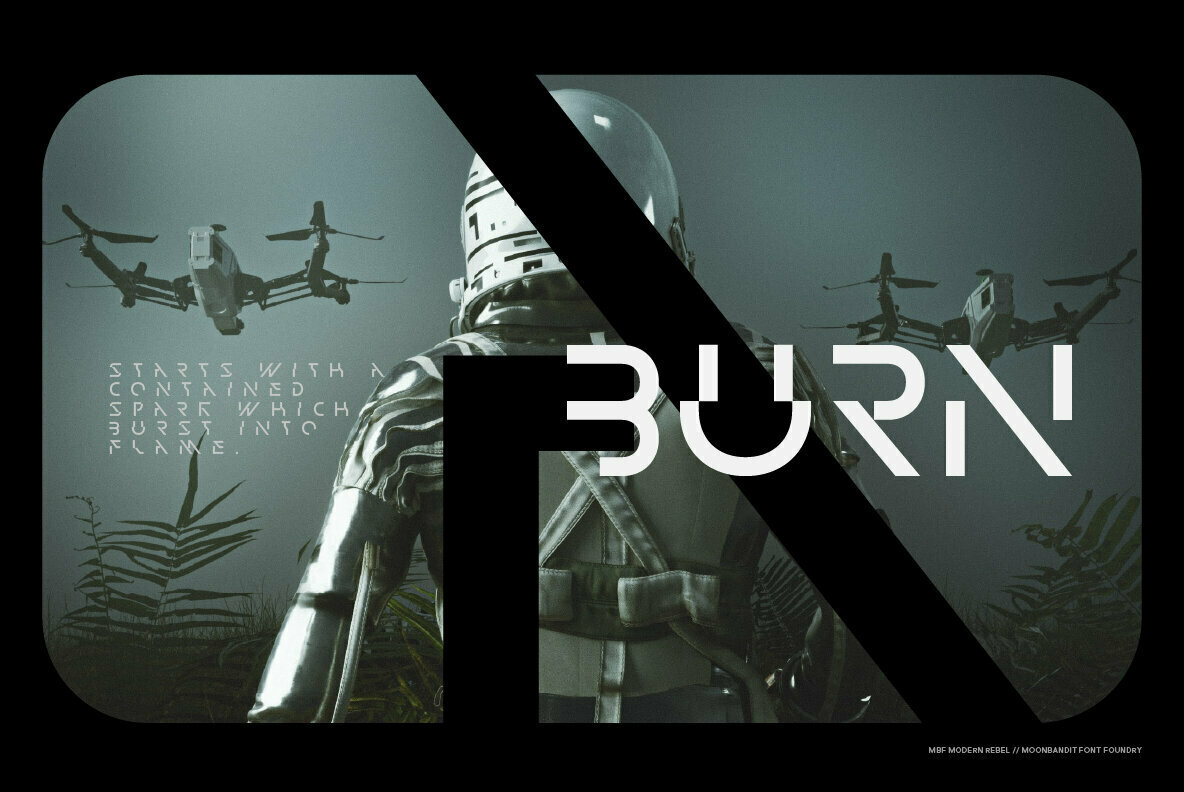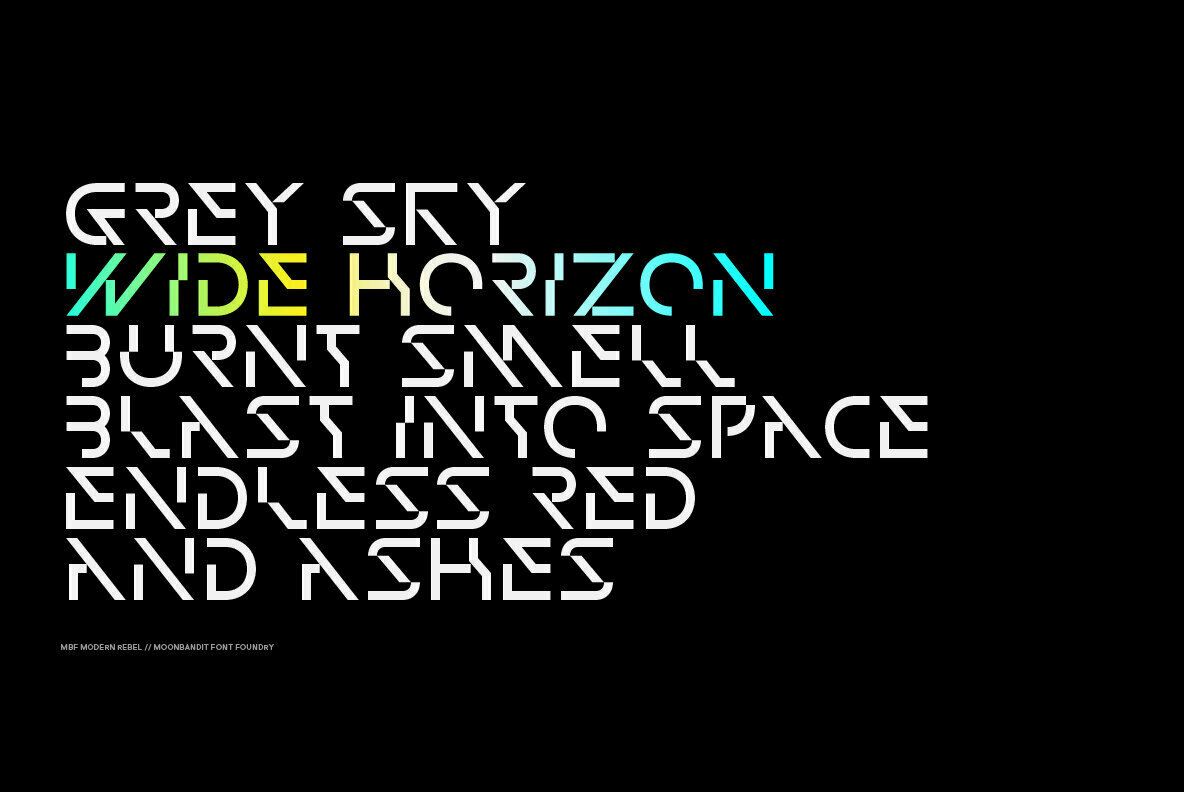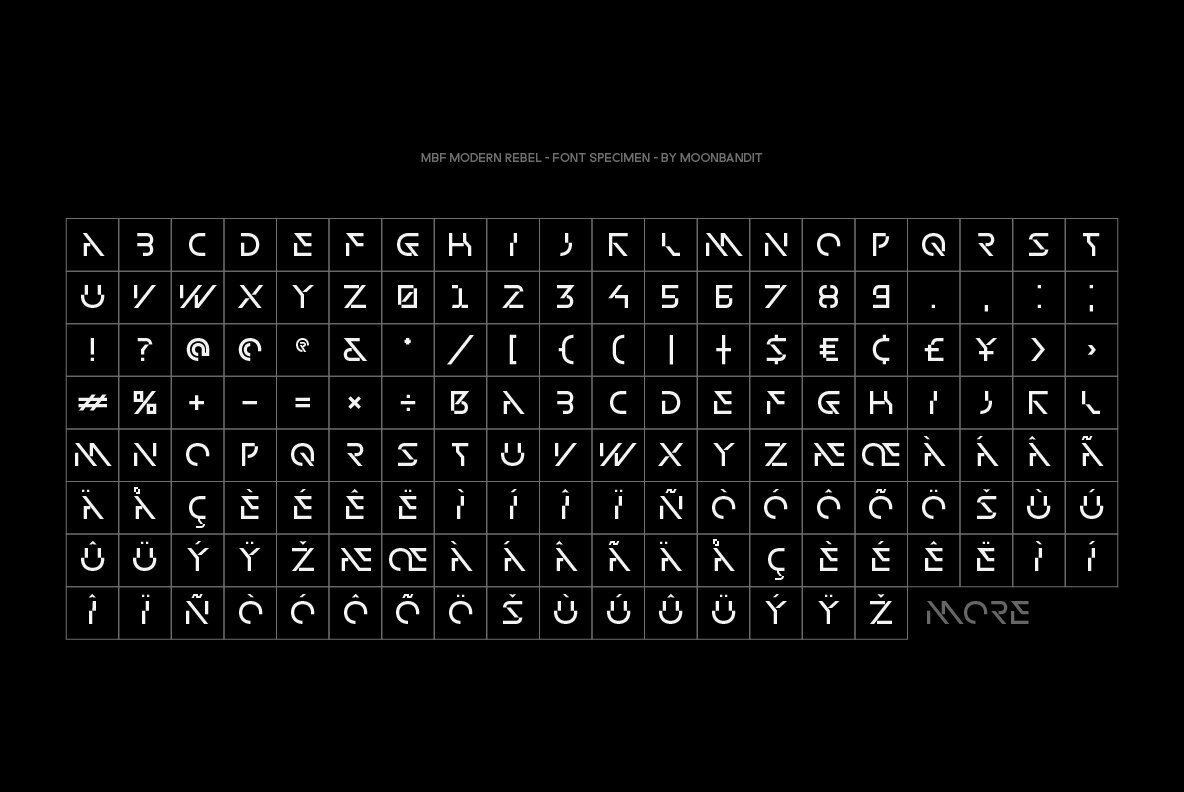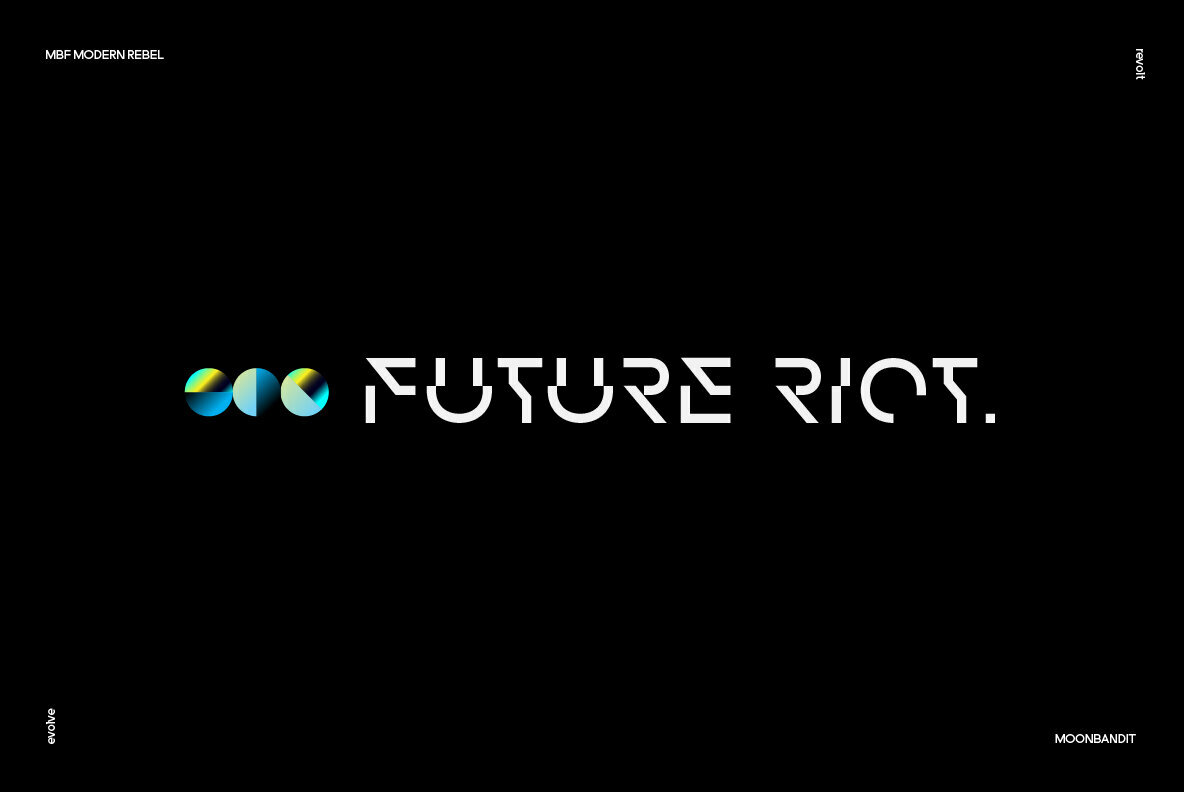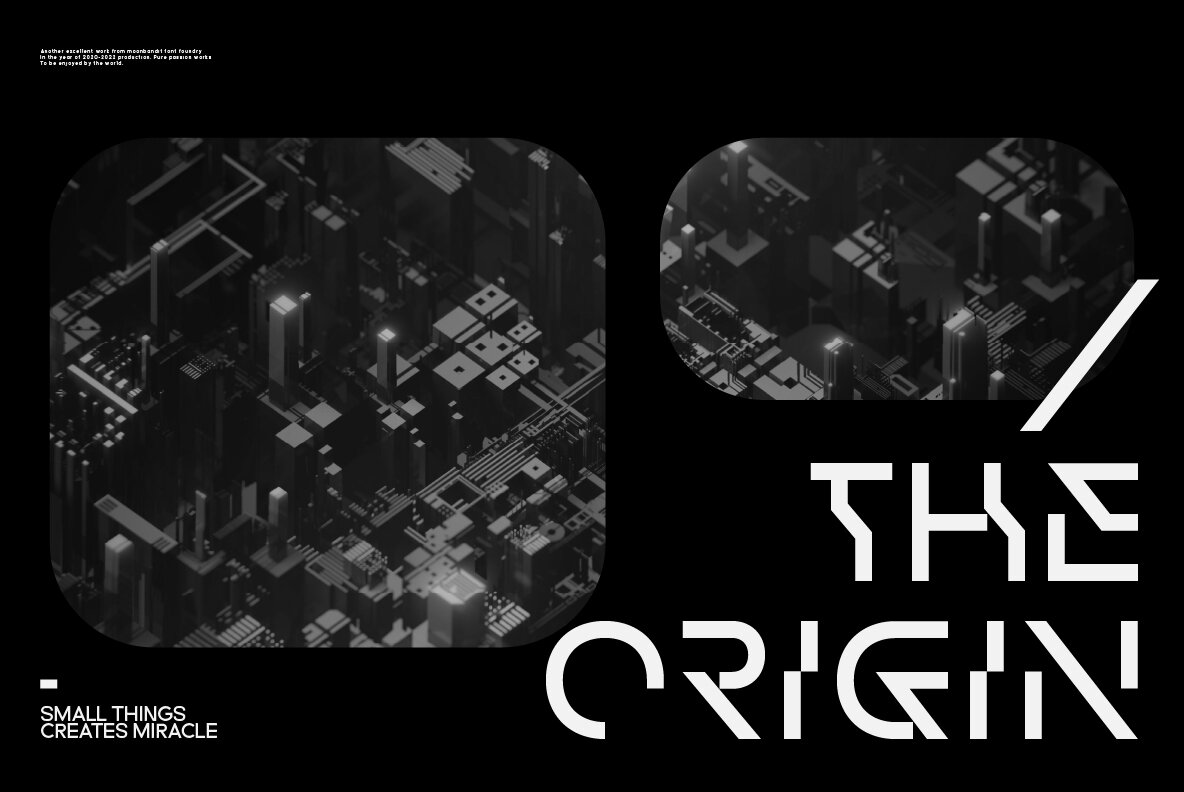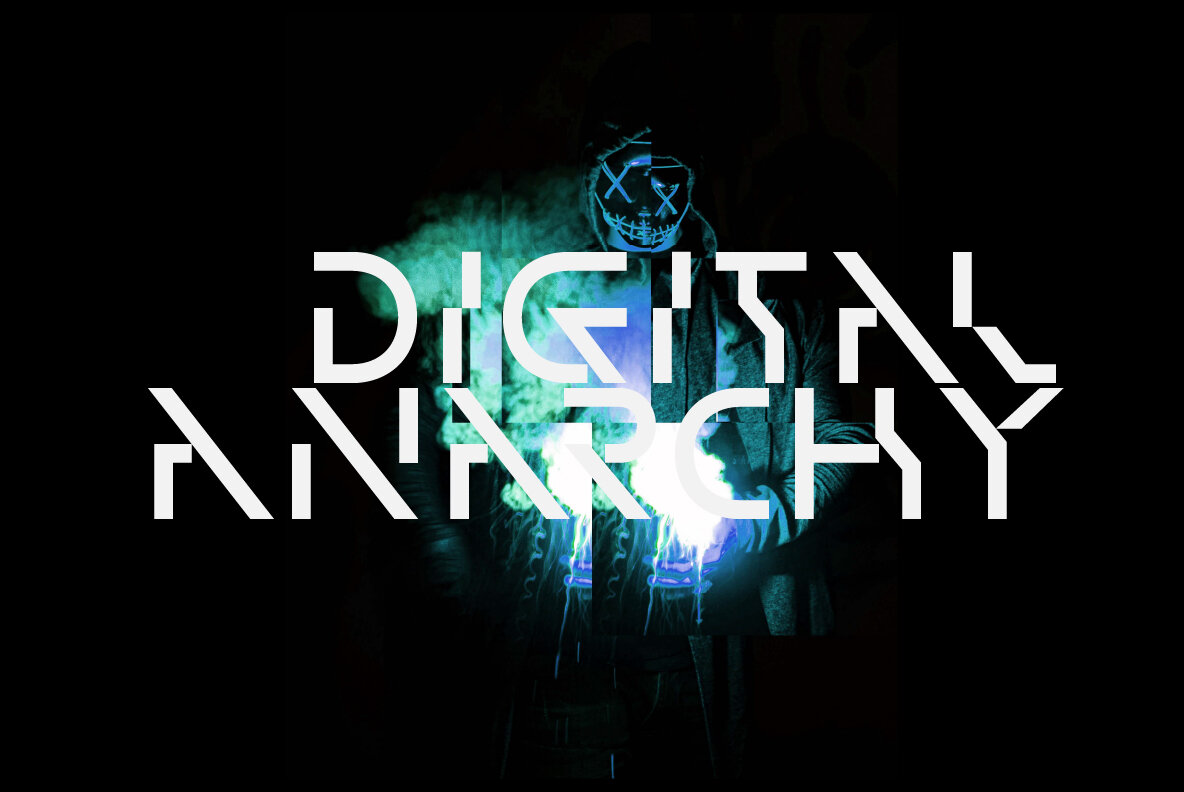
MBF Modern Rebel Font
MBF Modern Rebel
Modern Rebel, modern futuristic display font with cyberpunk era inspiration. Unique diagonal ornament in the typeface design maximize the effect. Best usage as a title, large size display, logotype, wordmark and many others. Modern rebel also supports multi language.